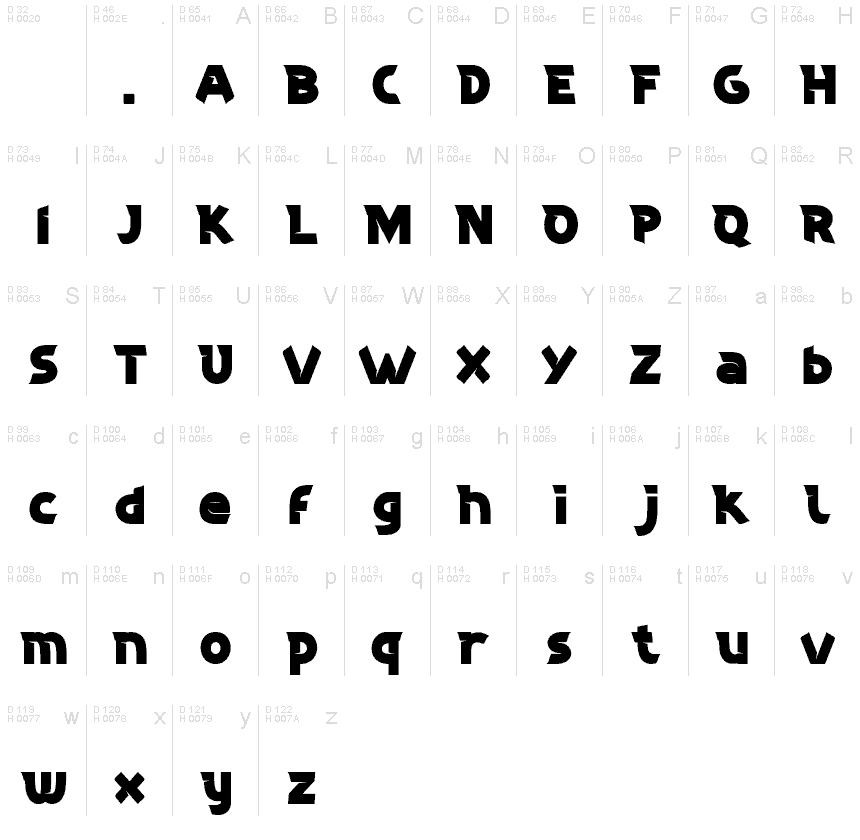
Froza Regular
Froza font by Achmad Yani of Flawless and Co is a rugged display typeface that channels an industrial environment with the usage intent of creating modern designs. A geometric approach can be felt in the architecture characterized by thick bold letters and linear elements. This type-face has a compact wide display that charms simplicity while putting focus on a minimally detailed look with branches of curvy edges.
Froza is intended for headlines and subheadings in posters, but its sizes must rarely exceed 72px in print or digital projects. Its body might see great outdoor application on street signages, directions, stores, bar names, or even dramatic wearing apparel like t-shirt typography. Other possibilities include branding as sign logos for brands, business cards design, editorials (magazines & newspapers), packaging labels (food & beverage), or books and novels covers.